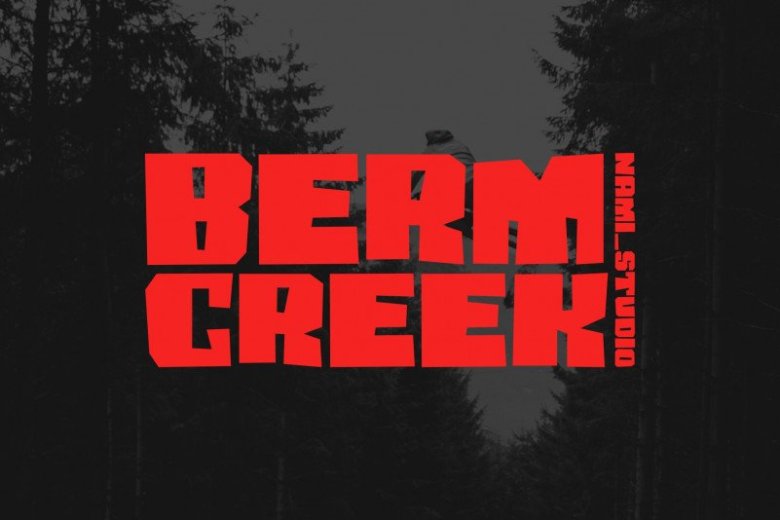
Berm Creek Display Font
When you see that swerved road heading toward dirt mound in front of you…
be prepare to SHRED IT !!
the BERM is right there to pump up your adrenaline.
The quirky jagged shape give your project a high cadence and boost of energy you ever need. Suit best for any extreme sport headline, poster, gym motivational t-shirt design, and stickers too.
Comes in multi-language support, BERM CREEK has the flexibility you need.